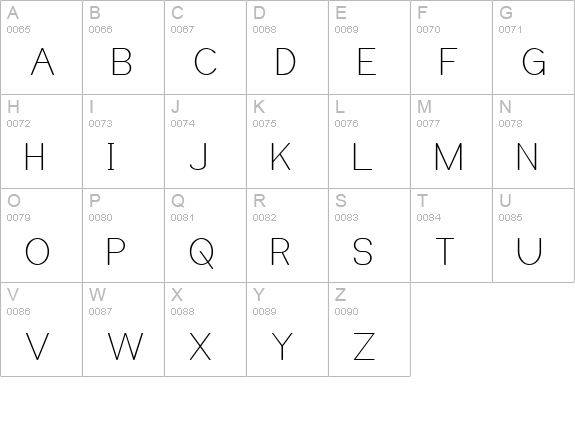
Castorgate is a versatile and elegant font that exudes sophistication and charm. With its unique blend of classic shapes and modern flair, this font is perfect for a wide range of design projects, from branding to editorial design. Its clean lines and balanced proportions make it easy to read while still making a statement. What sets Castorgate apart is not only its timeless appeal but also the fact that it is available for free download at FontsMarket.com. This means you can elevate your designs without breaking the bank, making it a valuable addition to any designer's toolkit. Whether you're working on a logo, website, or print materials, Castorgate will bring a touch of refinement and professionalism to your projects. Don't miss out on the opportunity to enhance your designs with the beauty of Castorgate font. Download it for free today and see how it can take your creations to the next level.